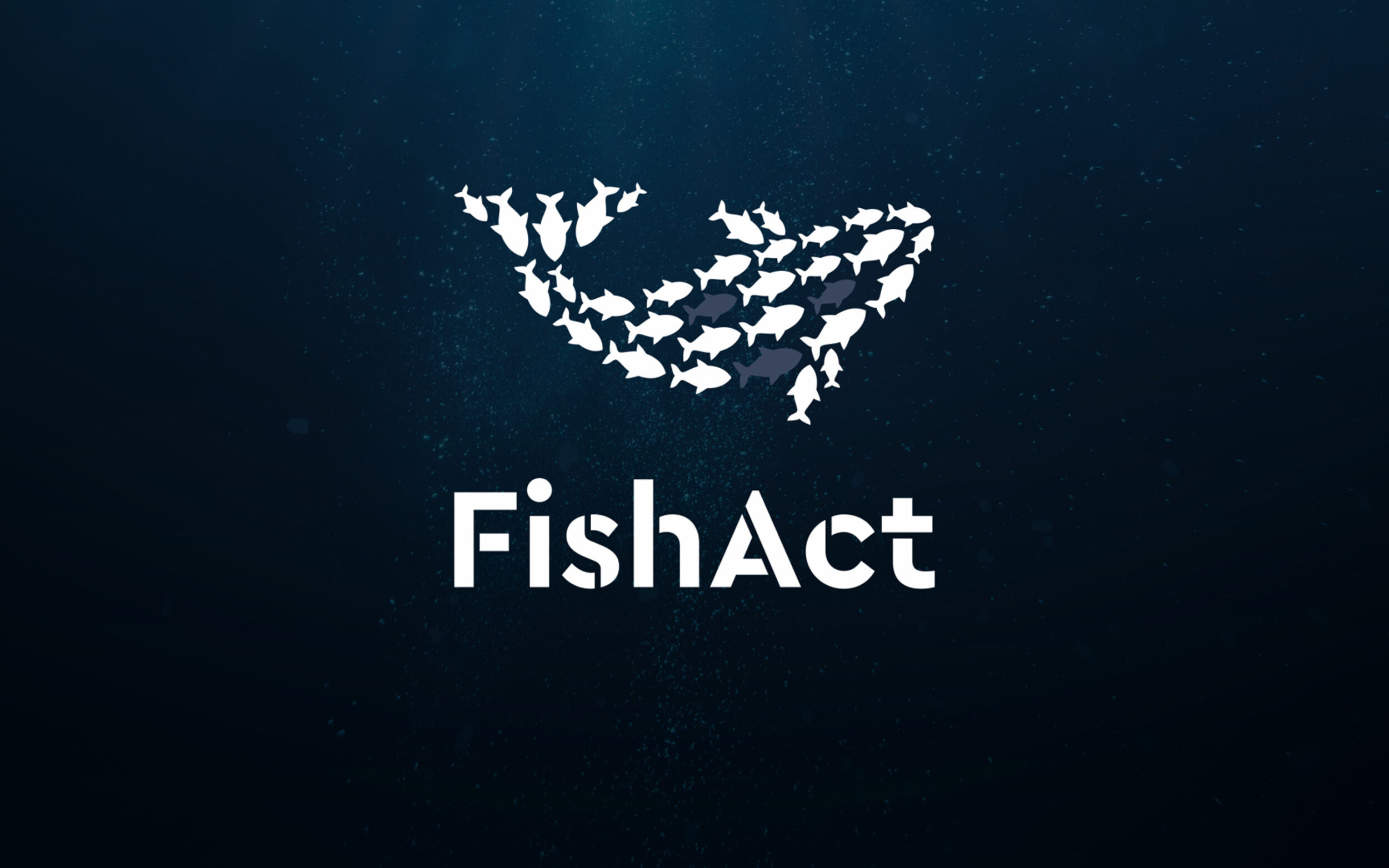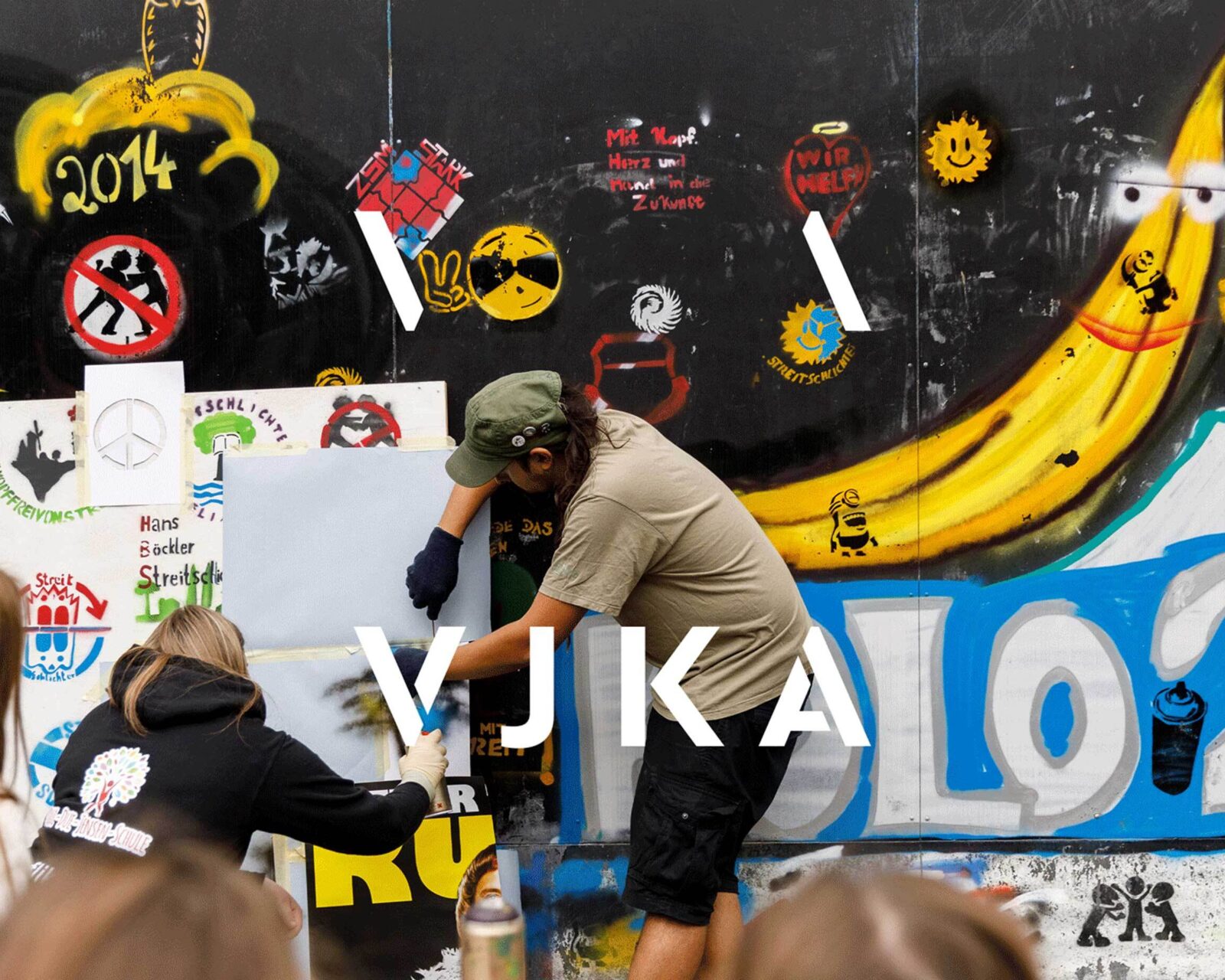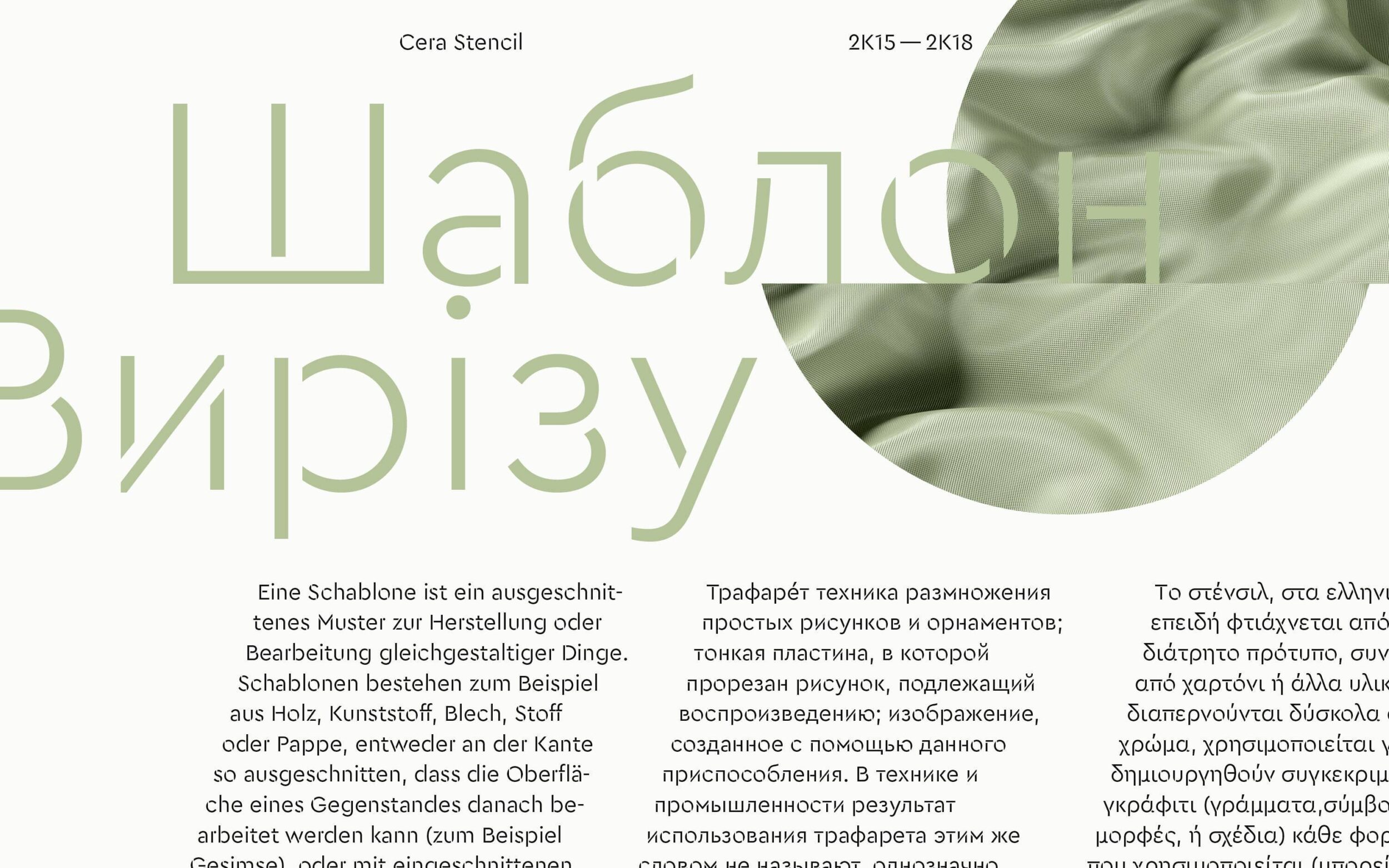
Cera Stencil
A pan-European Stencil for setting clean but interesting headlines in multiple languages.
Cera Stencil has two goals: to elevate stencil typefaces beyond cargo and military clichés, and to provide serious simplicity in multiple languages.
A key design feature in Cera Stencil is the elementary letter r. A homage to the alternate characters in Paul Renner’s Futura, the letter has been simplified to a stem and a dot.
Asymmetric stencilling creates a dynamic tension that emphasises the handwritten origins of Cera Stencil’s three supported scripts. The results balance pure geometry and stencil details with striking graphic effect. L’art dû pochoir, baby! Cera Stencil is a steadfast companion for setting striking and decorative headlines in print, on screen and in multiple languages. Naturally perfect for stencil signage application, Cera Stencil can be a key player in contemporary art, modern freight, luxury good and food brands.
Available in six weights, with useful dingbats and arrows. The extended, pan-European Cera Pro supports around 270 languages in the Latin, Cyrillic and Greek scripts and was developed with native consultants. With over 980 glyphs per style, Cera cares about localised letterforms and has the OpenType features to match.
The pan-European Cera Collection is driven by pure geometry including bestselling Cera Pro and its space-saving counterparts, the stencilled enhancement Cera Stencil, a truly hand-crafted display Cera Brush and soft, machine milling inspired Cera Round.